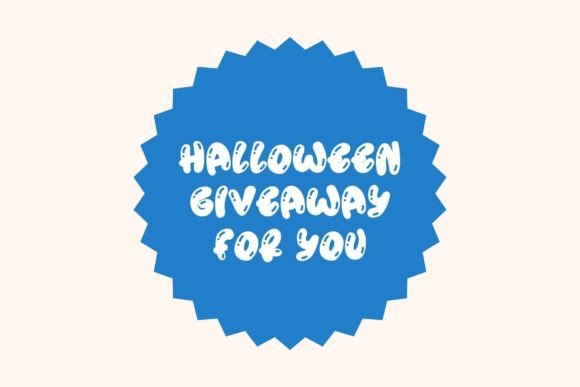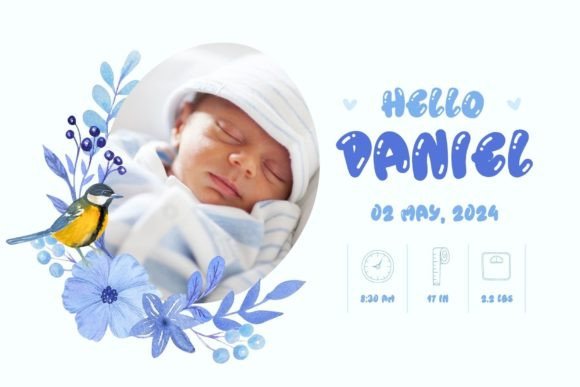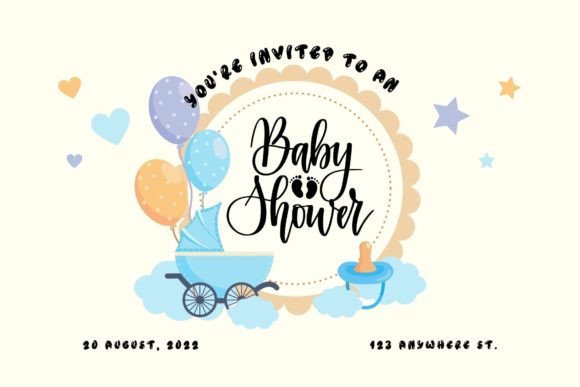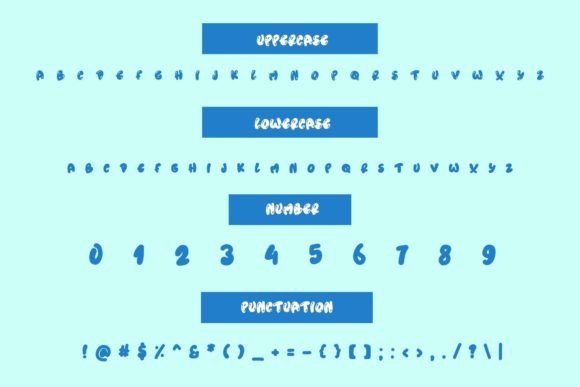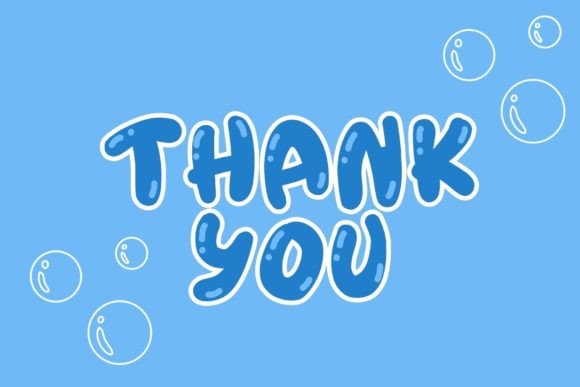
Introduction to Mister Bubble Font
Have you ever stumbled upon a font that instantly transports you back to a bygone era? For me, it was the Mister Bubble Font, a delightful retro display font that screams playfulness and authenticity. As I was working on a design project, I couldn’t resist the urge to explore this charming font, and I’m thrilled to share my discovery with you.
What makes the Mister Bubble Font truly special is its versatility. Whether you’re working on a blog post, logo, advertisement, or invitation, this font is sure to add a touch of whimsy and charm. With a high-quality design and transparent background, it’s the perfect design resource for your next creative project. And the best part? You can download it for free, making it an invaluable asset for designers looking to elevate their work.
As a designer, you know how essential it is to have a reliable font that can bring your ideas to life. The Mister Bubble Font is a valuable addition to any design library, and I’m excited to share its unique features and benefits with you in this article.
Key Features of Mister Bubble Font
- Unique, playful design ideal for creative projects and children’s content
- High-quality font with transparent background for seamless integration into designs
- Size: 1,500 characters, 1,000 kerning pairs, and 1,000 glyphs for extensive character support
- Resolution: Optimized for high-resolution displays, ensuring crisp and clear text at any size
- Perfect for use in logos, branding, graphics, and other design elements where a fun, whimsical touch is desired
Honest Review: Mister Bubble Font
I recently stumbled upon the Mister Bubble Font and I have to say, it’s a great addition to my design resource library. This free download is perfect for any creative project that requires a fun, playful vibe.
One of the standout features of the Mister Bubble Font is its transparent background, which makes it easy to layer over images or use as a standalone design element. The font itself is quite versatile, with a range of styles and weights to suit different design needs.
Here are some of the things that work well for me:
- ✨ High quality font with a unique design
- ✨ Perfect for creating eye-catching headlines and titles
However, I do have to mention a few limitations:
- ⚠️ The font is only available in a limited range of languages
- ⚠️ Some users may find the font a bit too playful or whimsical for certain design projects
Overall, I’m really impressed with the Mister Bubble Font. It’s a great addition to any design library and can add a lot of personality to a project. If you’re looking for a fun and unique font, I’d definitely recommend giving it a try.
Mister Bubble Font is a high-quality design resource perfect for various creative projects. Its unique style and transparent background make it ideal for use in illustrations, graphics, and other visual elements.
Tips for Getting the Most Out of Mister Bubble Font
To get the most out of the Mister Bubble Font, use it in conjunction with other design elements to create a visually appealing composition. Experiment with different font sizes, colors, and arrangements to achieve the desired effect.
Common Use Cases for Mister Bubble Font
Mister Bubble Font is commonly used in invitations, greeting cards, and other social media graphics. Its unique style and transparent background make it perfect for adding a touch of whimsy and personality to your designs.